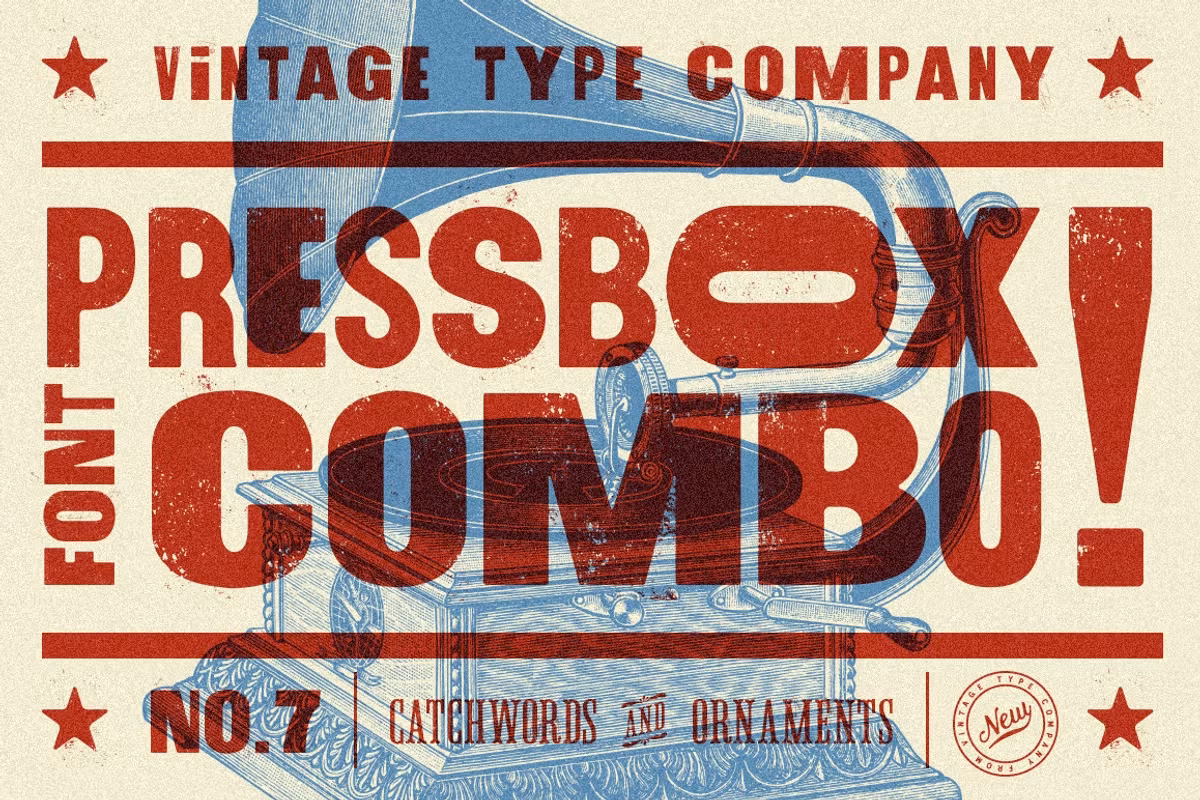
PressBox Font Combo Free Download is a bold and vintage-inspired typeface duo designed to bring industrial charm and retro character to your projects. With a combination of classic serif and condensed sans-serif styles, this font combo is perfect for logos, packaging, signage, posters, and branding that needs a rugged, Americana aesthetic.
The PressBox fonts are crafted with subtle texture and vintage detailing, giving your designs an authentic, hand-crafted look. Whether you're creating a heritage brand identity or a gritty gig poster, this font combo offers the versatility and personality to stand out.